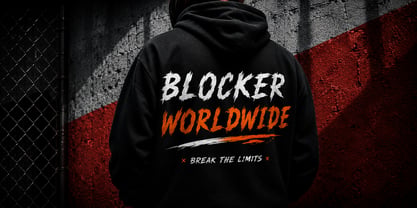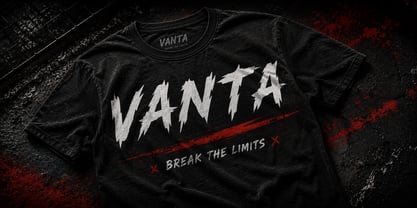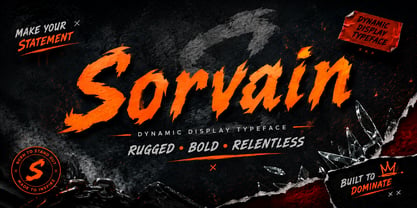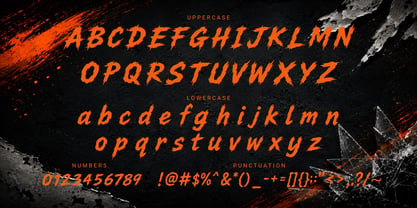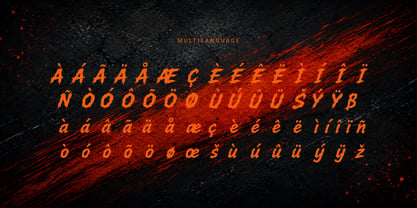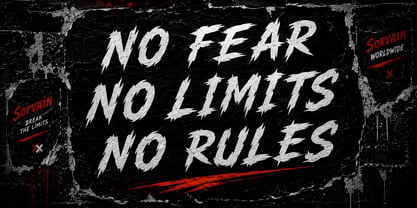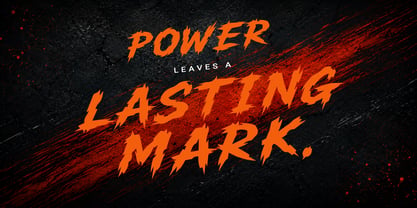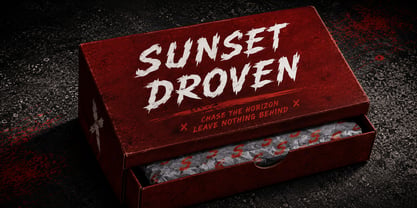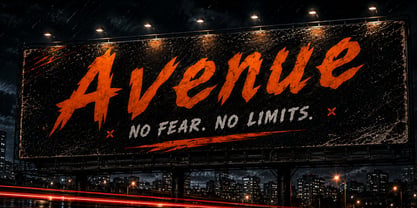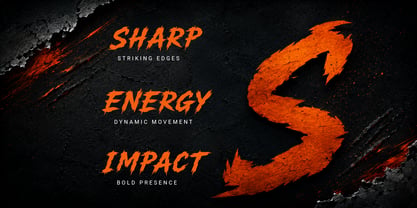
Sorvain
Unleash raw energy with Sorvain, an aggressive brush display font crafted for bold visual impact. Featuring sharp cuts, rough brush textures, and dynamic handcrafted strokes, Sorvain delivers a powerful urban aesthetic that commands attention.
Designed for creatives who want their typography to stand out, Sorvain is ideal for streetwear branding, esports graphics, gaming titles, sports posters, music artwork, apparel, product packaging, YouTube thumbnails, social media campaigns, and cinematic promotional designs.
Its expressive letterforms combine handcrafted brush movement with distressed details, making every headline feel energetic, rebellious, and unforgettable.
• Streetwear Branding
• Gaming & Esports
• Sports Posters
• Album Covers
• Movie Titles
• Action & Horror Designs
• Apparel Graphics
• Product Packaging
• Logo Design
• YouTube Thumbnails
• Social Media Graphics
• Event Posters
• Merchandise
• Advertising Campaigns
• Bold Editorial Layouts